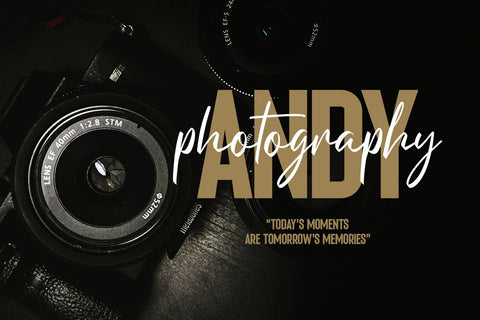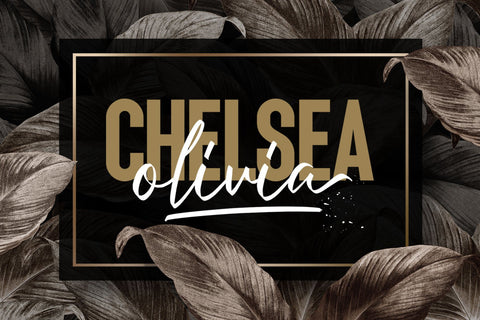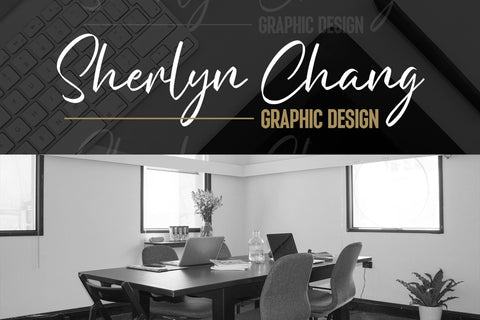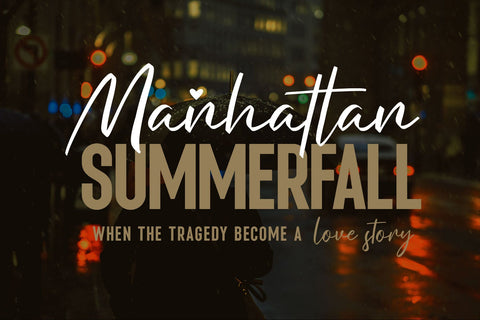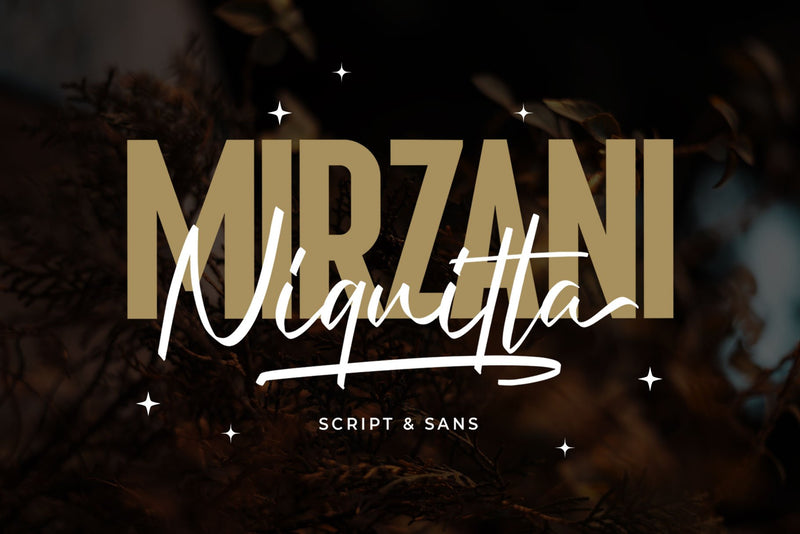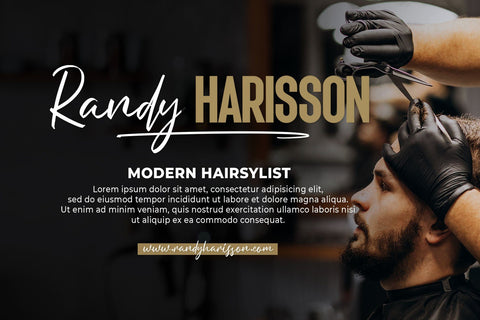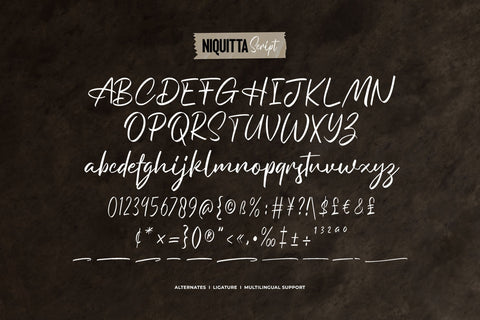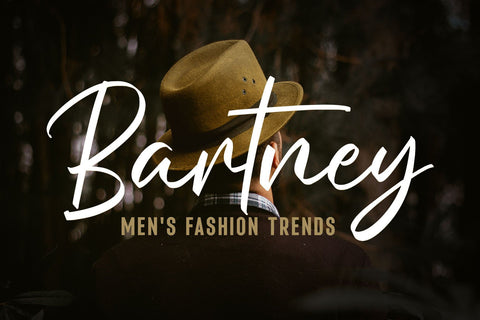
Niquitta Mirzani - Font Duo
introducing Niquitta Mirzani, a brand new font combination Script and Sans. The script means signature because the letterform created with quick handwriting, wide, signature-like. The sans serif designed with condensed shapes, semi-bold that gives a large space to be combined with the script one.
You can mix and match this font with any layout possibilities. top-bottom, left-right, headline-tagline, or side by side. Niquitta Mirzani script carefully crafted with additional alternates and ligatures that allow you to create a natural typographic design. This font duo is perfect for display such as apparel, name cards, headline, logo, packaging, labels, signage, quote, and many more! The versatile design for many themes such as romantic, professional, formal, or playful!
Fonts featured :
- Smallcaps
- Numbers & punctuation
- Multilingual
- PUA encoded
- Swashes
- Stylistic set 01-03
- Ligatures.